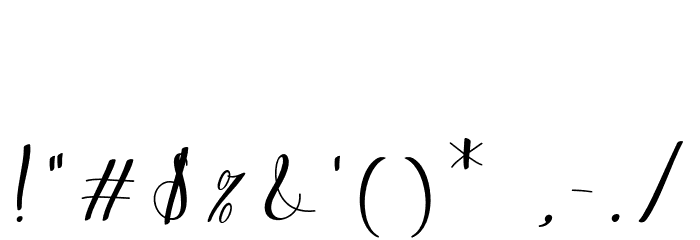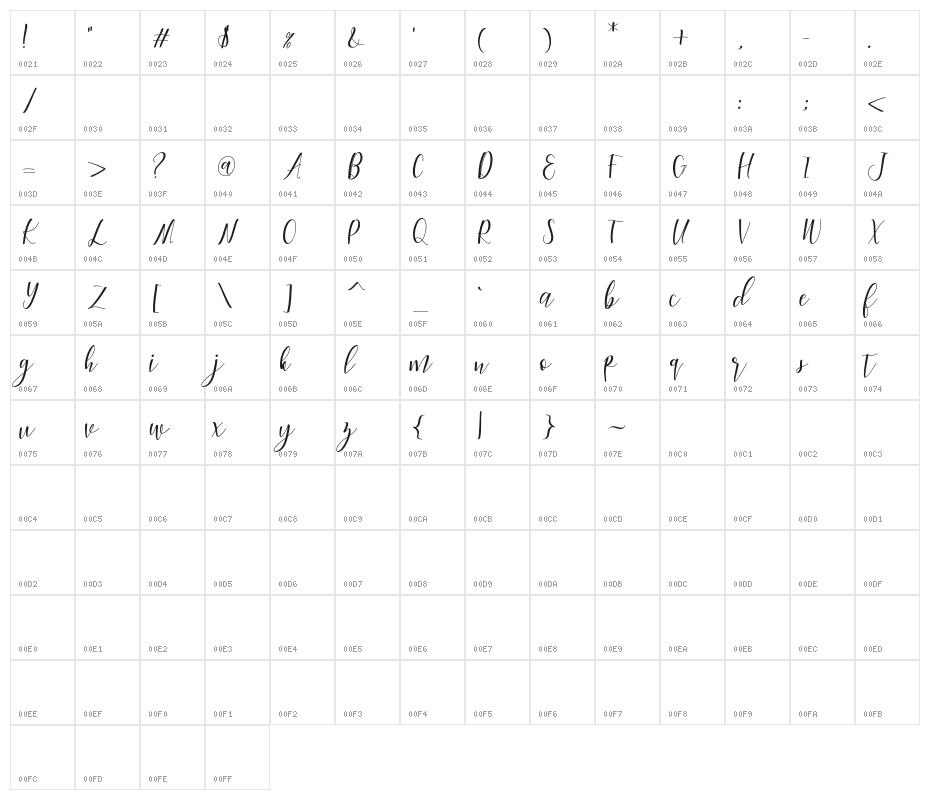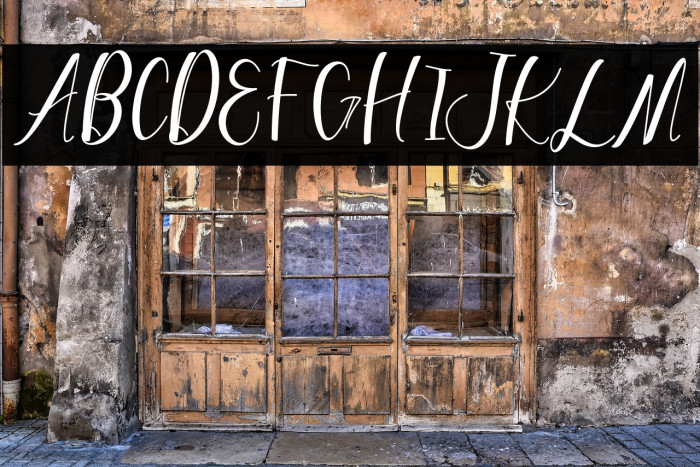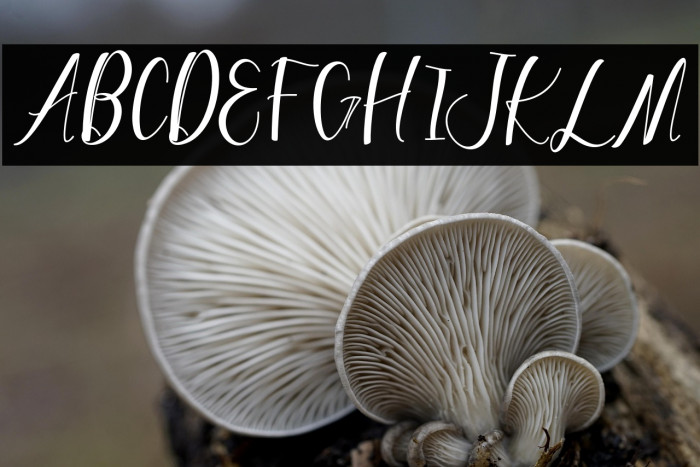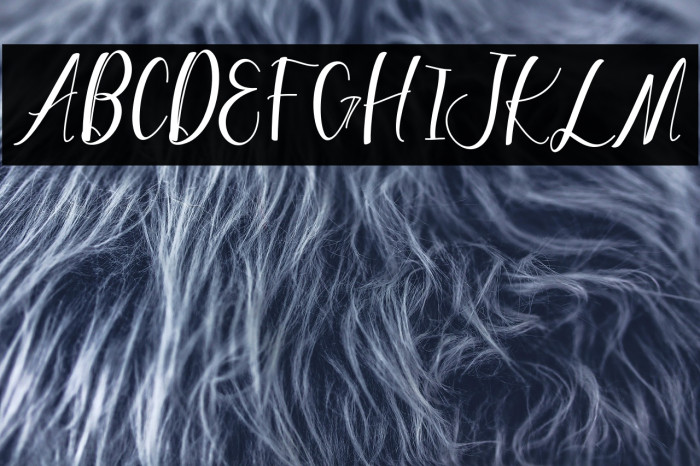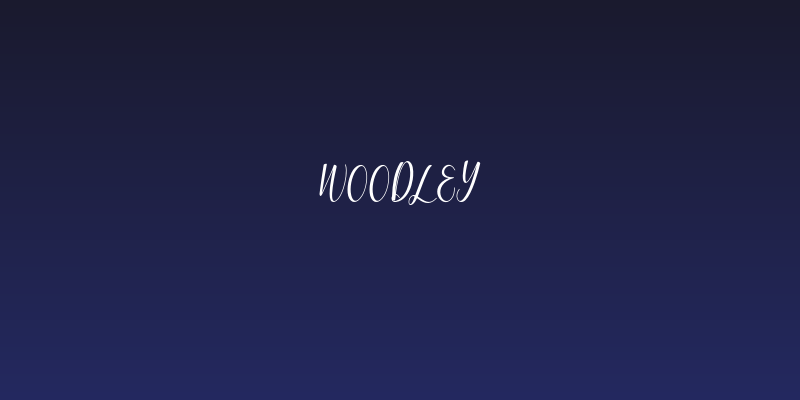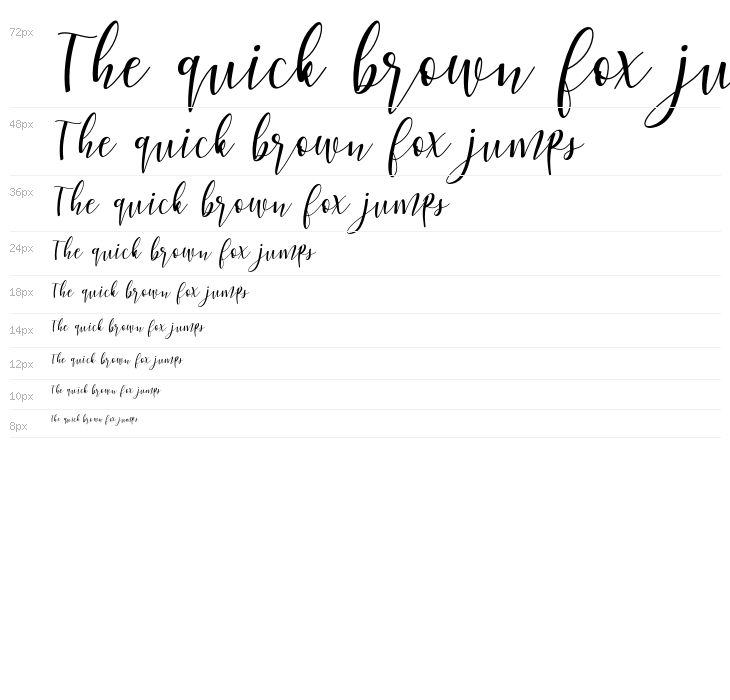
Woodley Font
Woodley Description
This font exudes a sense of elegance and fluidity, characterized by its cursive, handwritten style. The letters are gracefully connected, with sweeping ascenders and descenders that add a touch of sophistication. The strokes vary in thickness, providing a dynamic and lively appearance. The uppercase letters are bold and prominent, while the lowercase letters maintain a consistent flow, enhancing readability. The special characters complement the overall style, maintaining the same fluidity and elegance. This font is perfect for projects that require a personal, artistic touch.
Overall StyleElegant, Artistic
Use CaseLogos, Invitations, Artistic projects
Proposed ProjectsIdeal for wedding invitations, greeting cards, personal branding, and artistic projects.